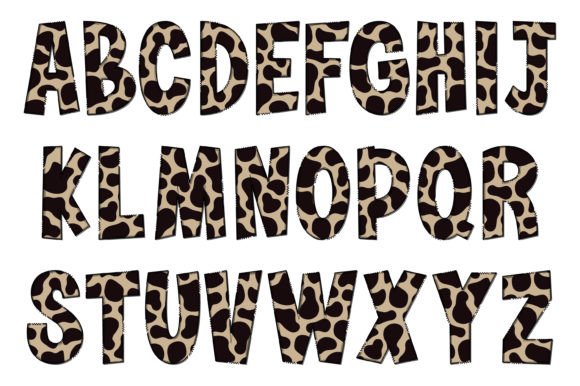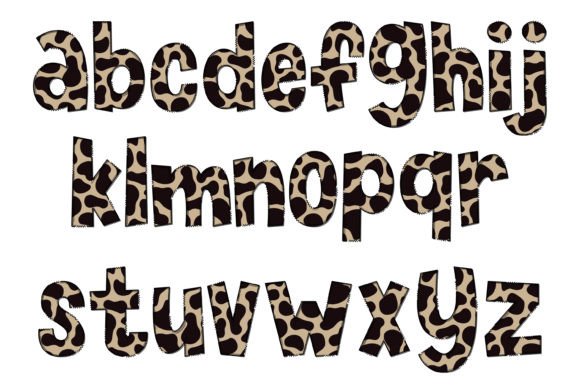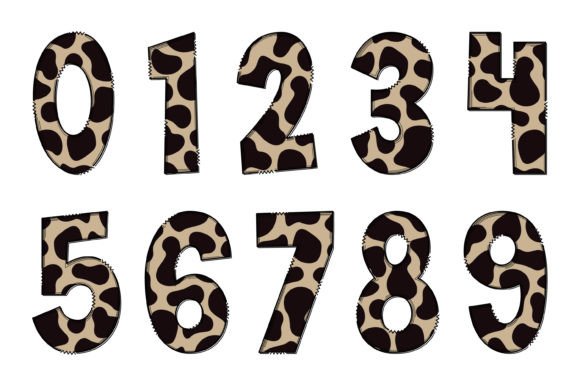
Introduction to Moo Larious Font
Have you ever been browsing through a children’s book and suddenly felt a rush of creative inspiration? The whimsical illustrations and playful typography can be a powerful trigger for designers, sparking new ideas and projects. One font that can bring that same magic to your creative endeavors is the Moo Larious Font.
This delightful font is a design resource that’s perfect for adding a touch of personality to your projects. With its colorful and easy-to-read style, it’s no wonder that Moo Larious Font is a go-to choice for designers looking to create engaging and artistic designs. Whether you’re working on a children’s book, poster, or greeting card, this font is sure to bring a smile to your audience’s face.
As a high-quality, color font, Moo Larious Font offers the perfect combination of style and functionality. With its transparent background and compatibility with popular design software like PhotoShop, Illustrator, and Inkscape, it’s a valuable asset for any designer looking to elevate their creative project. And the best part? You can even download a free version of this amazing font to get started on your next design adventure!
Key Features of Moo Larious Font
- Unique and playful design that adds a creative touch to any project
- High-quality font with a transparent background, perfect for layered designs and creative projects
- Perfect for designers, artists, and writers looking for a fun and quirky font to add to their creative project
Honest Review: Moo Larious Font
I recently stumbled upon the Moo Larious Font, and I must say it’s a gem in the world of design resources. This high-quality font is perfect for any creative project that requires a unique touch.
- ✨ Elegant and modern design that stands out from the crowd
- ✨ Easy to use and customize for various design projects
- ⚠️ Not ideal for designs that require a transparent background, as the font’s design may not blend seamlessly
- ⚠️ Limited font styles and weights, which might not cater to all design needs
Overall, I’m impressed with the Moo Larious Font’s design and versatility. It’s an excellent addition to any designer’s toolkit, especially for those working on creative projects that require a modern and elegant touch. While it may have some limitations, its free download option and high-quality design make it a worthwhile resource to explore.
Tips for Getting the Most Out of Moo Larious Font
To get the most out of the Moo Larious Font, experiment with different font sizes, colors, and combinations with other design elements. Use the transparent background feature to create a sense of depth and visual interest in your designs.
The Moo Larious Font is perfect for a variety of creative projects, including graphic design, digital art, and marketing materials. Use the font to add a touch of whimsy and personality to your designs, and take advantage of the high quality and transparent background features to create stunning visuals.